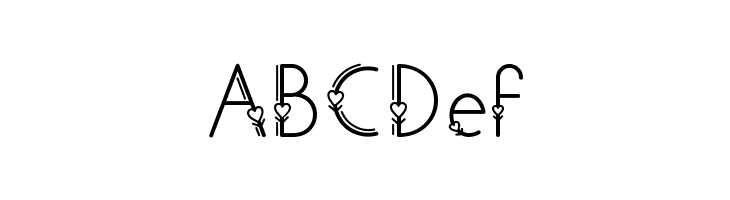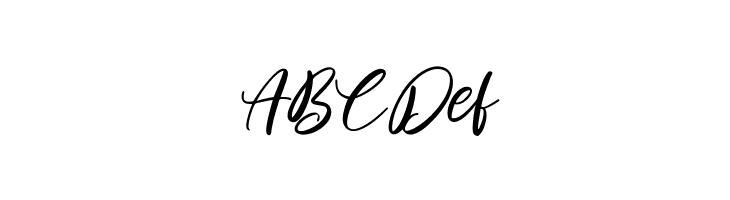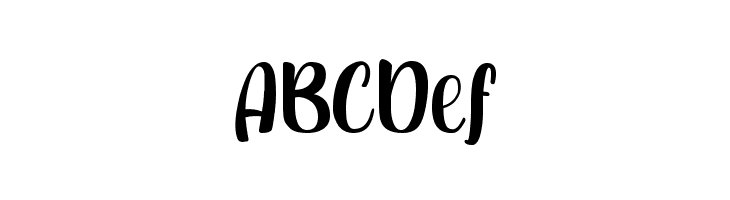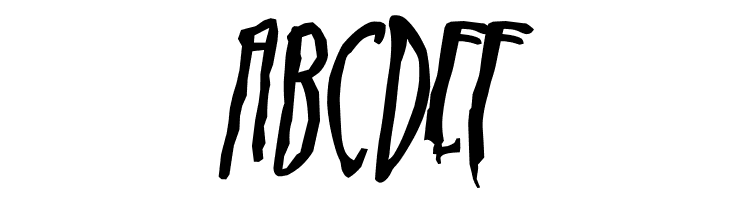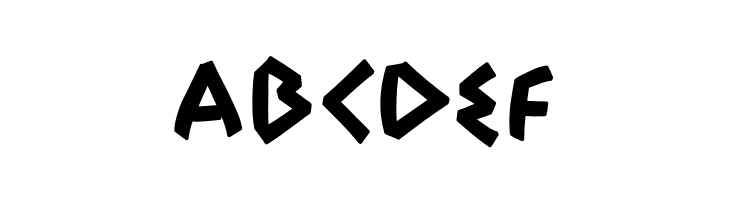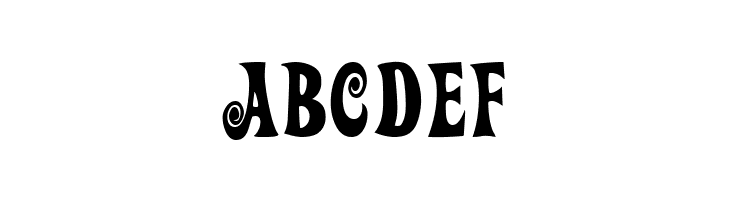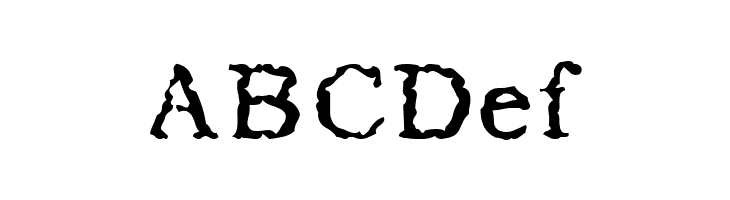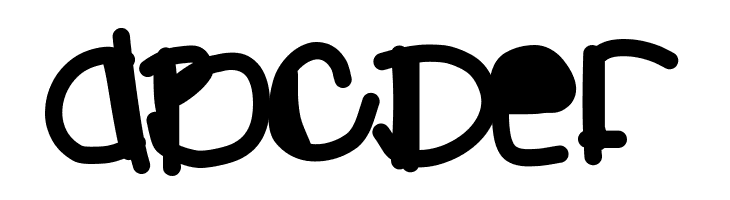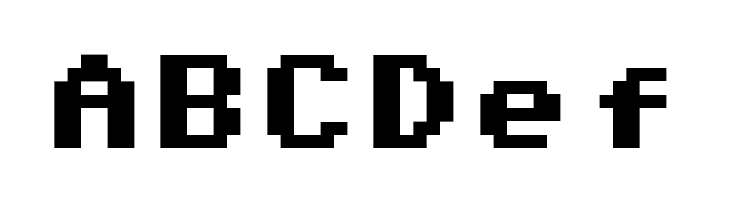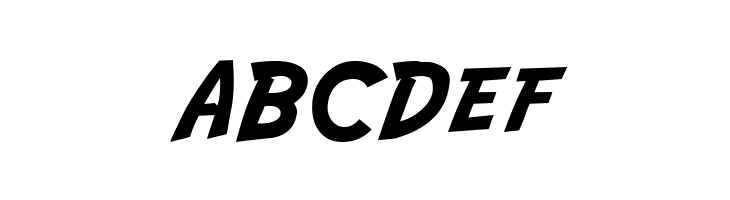
( Fonts by www.26plus-zeichen.de )
A modern, italicized sans-serif font with clean lines and a sleek design.
( charmingcharlie.co.nr/ )
A bold, playful handwritten font with a casual and friendly style.
A lively and elegant script font with fluid, cursive strokes and graceful curves.
( Fonts by www.braineaters.com )
A bold, whimsical font with decorative swirls and curls, perfect for creative projects.
A playful, bold font with a 3D shadow effect and cartoonish style.
( Fonts by Sentinel Type - James Arboghast )
A modern, inline font with geometric shapes and smooth curves.
( Fonts by Sentinel Type - James Arboghast )
A playful, dotted outline font with bold, rounded characters.
( Fonts by Des Gomez )
A bold, playful handwritten font with a whimsical and artistic style.
A playful, dynamic handwritten font with fluid strokes and a casual appearance.
( ArchiFont - Gabriele Archibugi )
A whimsical, hand-drawn font with curly, vine-like strokes.
( Fonts by Inopatype )
A playful, casual handwritten font with smooth, flowing curves.
( Joz Gandoz - creativemarket.com/jozgandoz )
A playful cursive font with elegant curves and a whimsical charm.
( Joz Gandoz - creativemarket.com/jozgandoz )
A playful and elegant script font with a handwritten appearance.
( Andhi Yulianto - creativemarket.com/great19 )
A playful and elegant script font with a modern twist.
A graceful and sophisticated script font with a flowing, handwritten style.
A cursive, handwritten font with elegant, flowing strokes and ornate flourishes.
A bold, playful script font with rounded, fluid characters.
( Sports Font Database - boards.sportslogos.net/topic/104464-sports-font-database/ )
A bold, geometric font with strong, angular lines and a blocky appearance.
A bold, angular font with geometric shapes and a dynamic style.
( Fonts by www.freakyfonts.de )
A pixelated, monospaced font with a retro digital aesthetic.
A bold, angular font with a dynamic, forward-leaning slant.
A bold, brush-style font with an adventurous and expressive character.
( Fonts by Nur Aisyah Amalia )
A whimsical decorative font with heart-shaped accents on each character.
A lively and expressive handwritten font with dynamic strokes and a playful style.